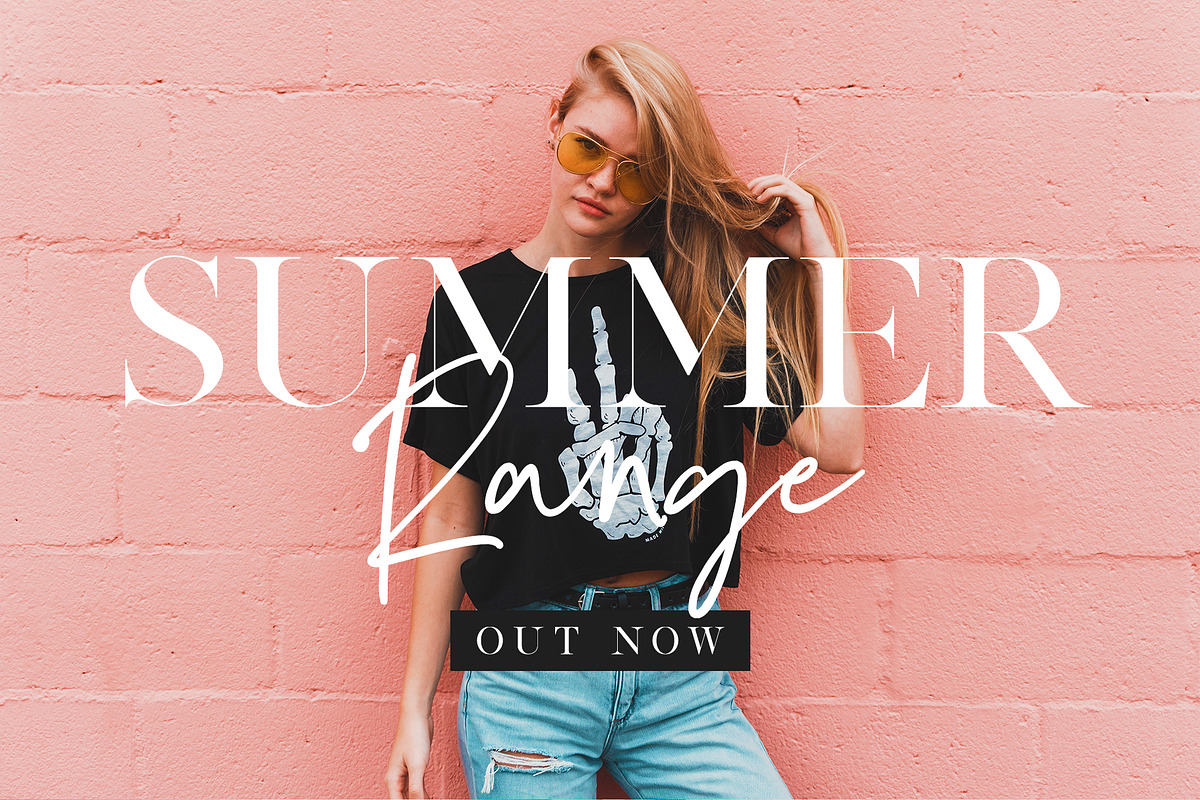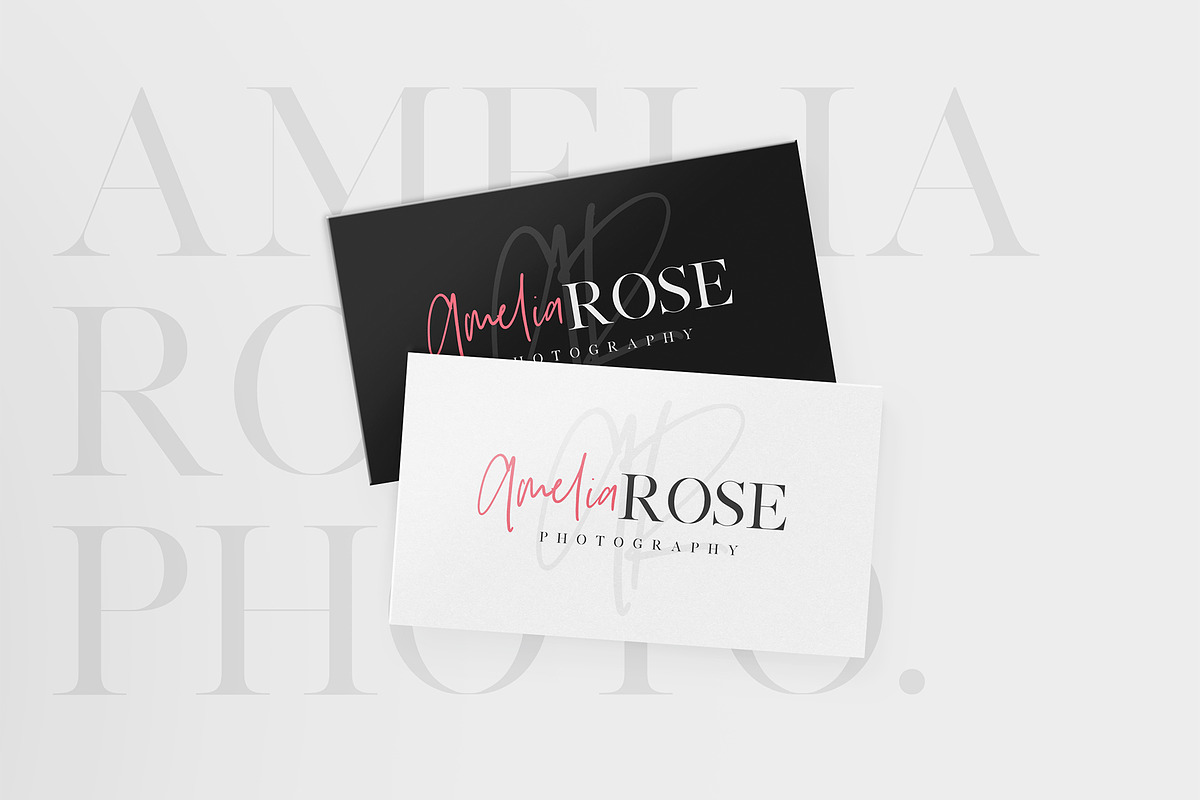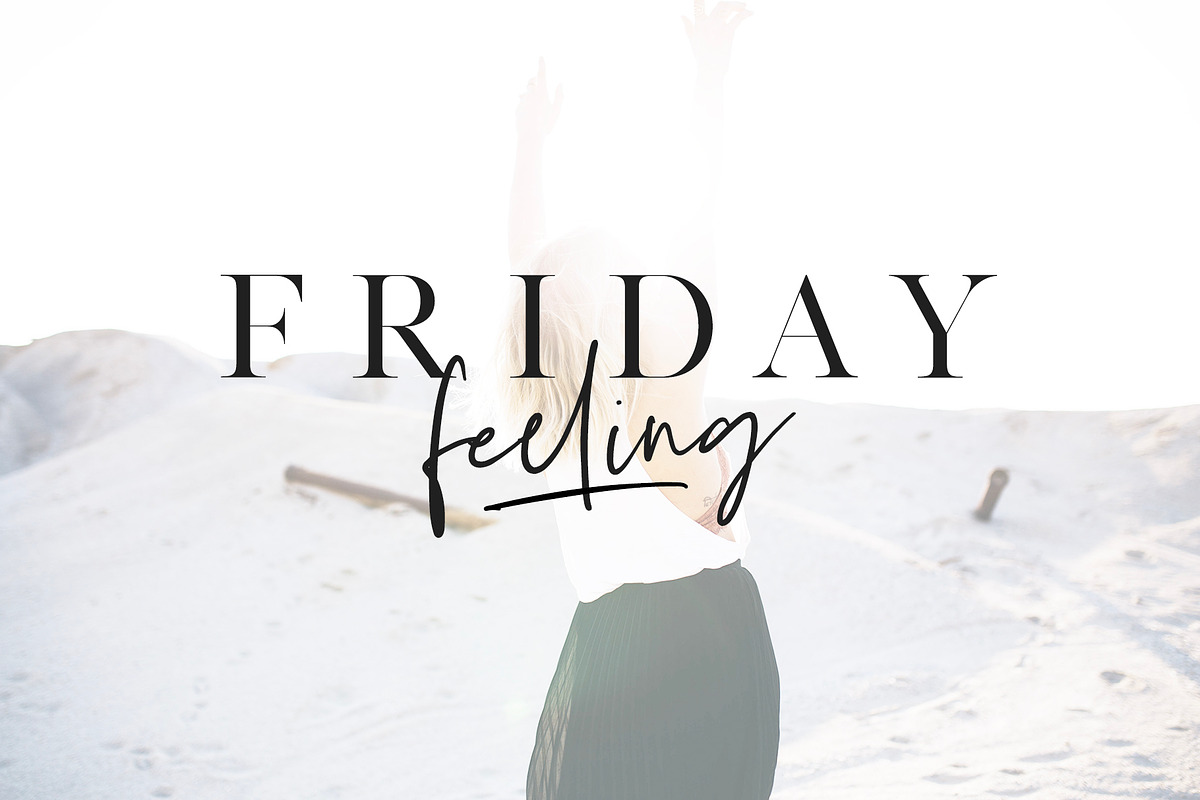
Introducing the Silver South Font Duo, a classy, contemporary pair of script and serif fonts. With a stylish didot-style serif font and a free-flowing, expressive script companion, Silver South offers beautiful typographic harmony for a diversity of design projects, including logos & branding, wedding designs, social media posts, advertisements & product designs.